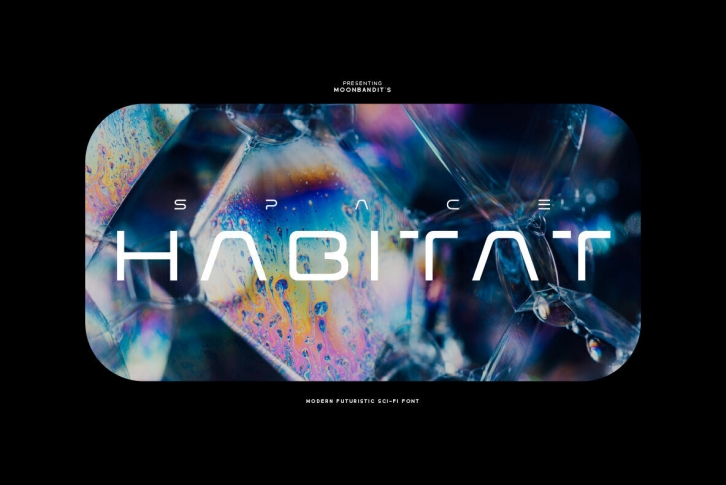
Space Habitat is a modern minimalist sans serif display font. Wide and wavy with a lot of rounded corner and sharp edge, emphasize the futuristic sci-fi theme. Perfect usage includes logo, poster, display, headline, t-shirt design and many more.